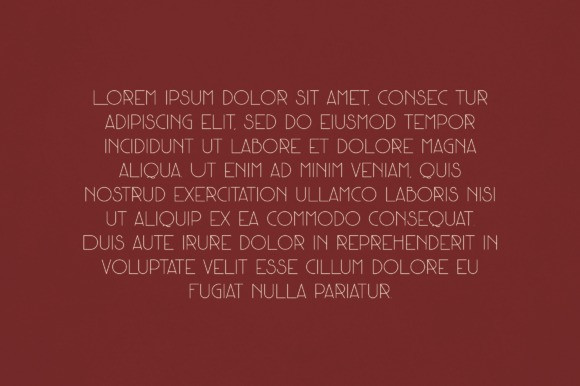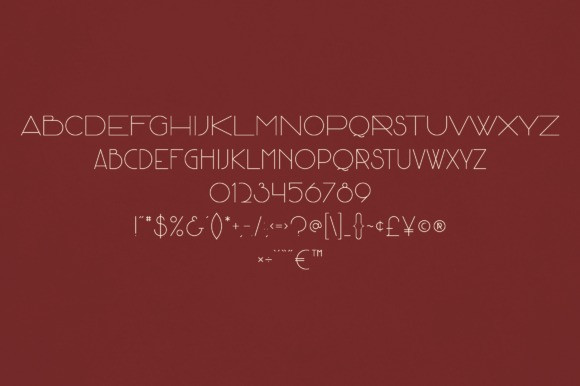
Zya Font
Zya Font is an elegant and versatile display font that will make your typography truly unique! It will enchant every logo, branding, headline, or plain text!